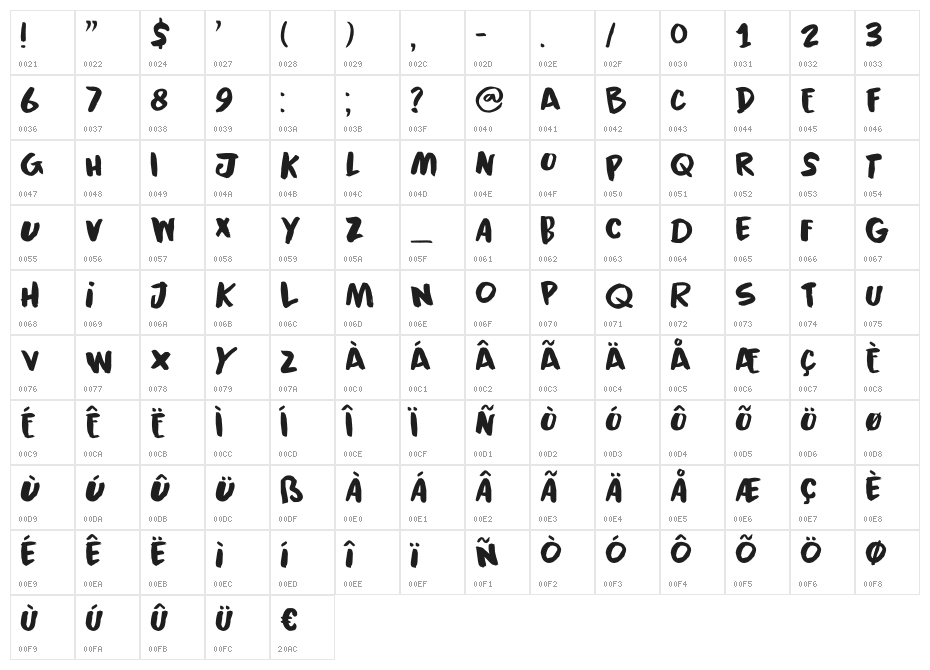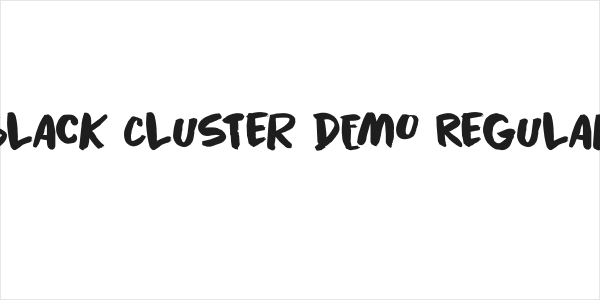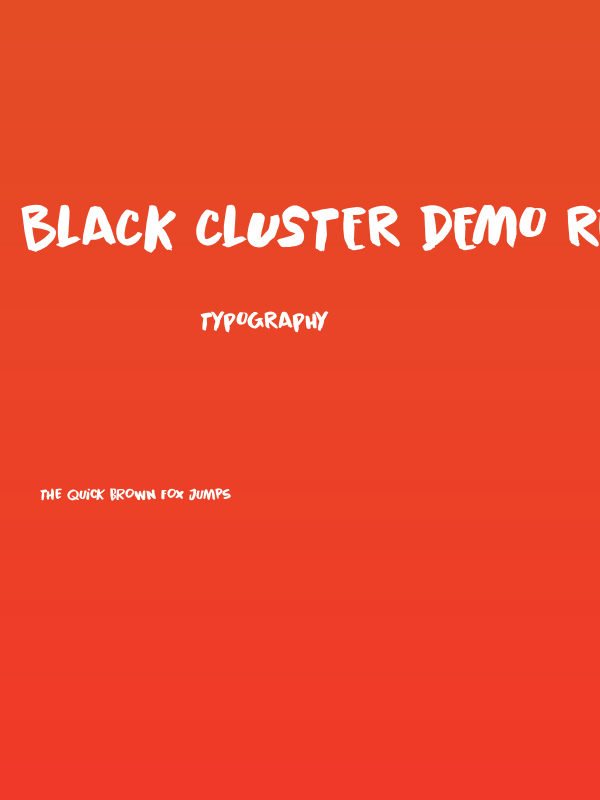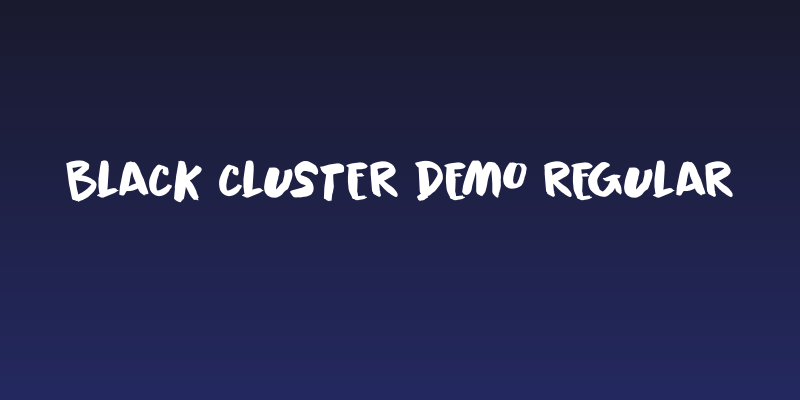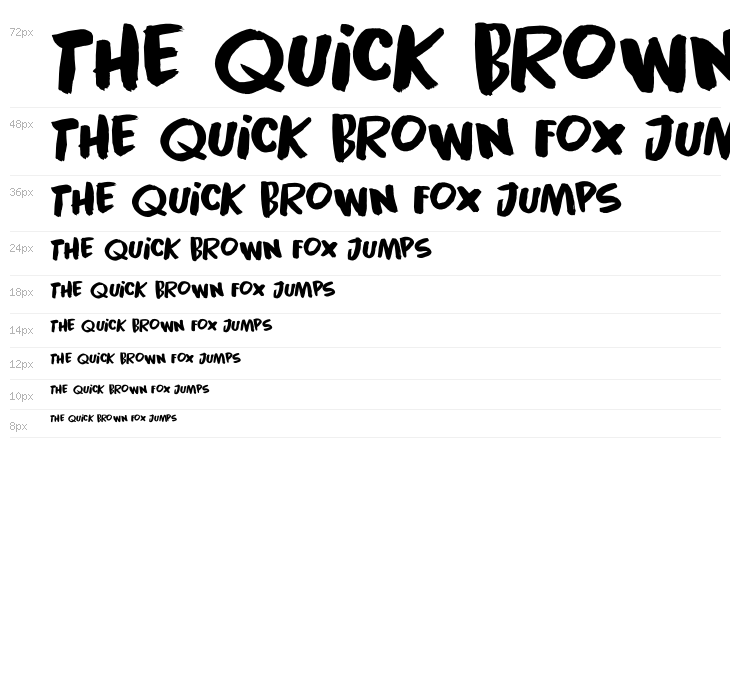
Black Cluster DEMO Regular Font
Black Cluster DEMO Regular Description
This font features a bold, brush-like style with a hand-painted appearance. The strokes are thick and uneven, giving it a dynamic and energetic feel. The uppercase and lowercase letters maintain a consistent style, with rounded edges and a slightly irregular baseline that adds to its casual and artistic vibe. The numbers follow the same aesthetic, ensuring uniformity across all characters. Special characters are included, with some unique elements like the fly symbol, adding a quirky touch. This font is ideal for projects that require a bold, artistic statement.
| Overall Style | Artistic, Energetic |
| Use Case | Headlines, Posters, Artistic Branding |
| Proposed Projects | Ideal for posters, album covers, artistic branding, and creative advertising campaigns. |